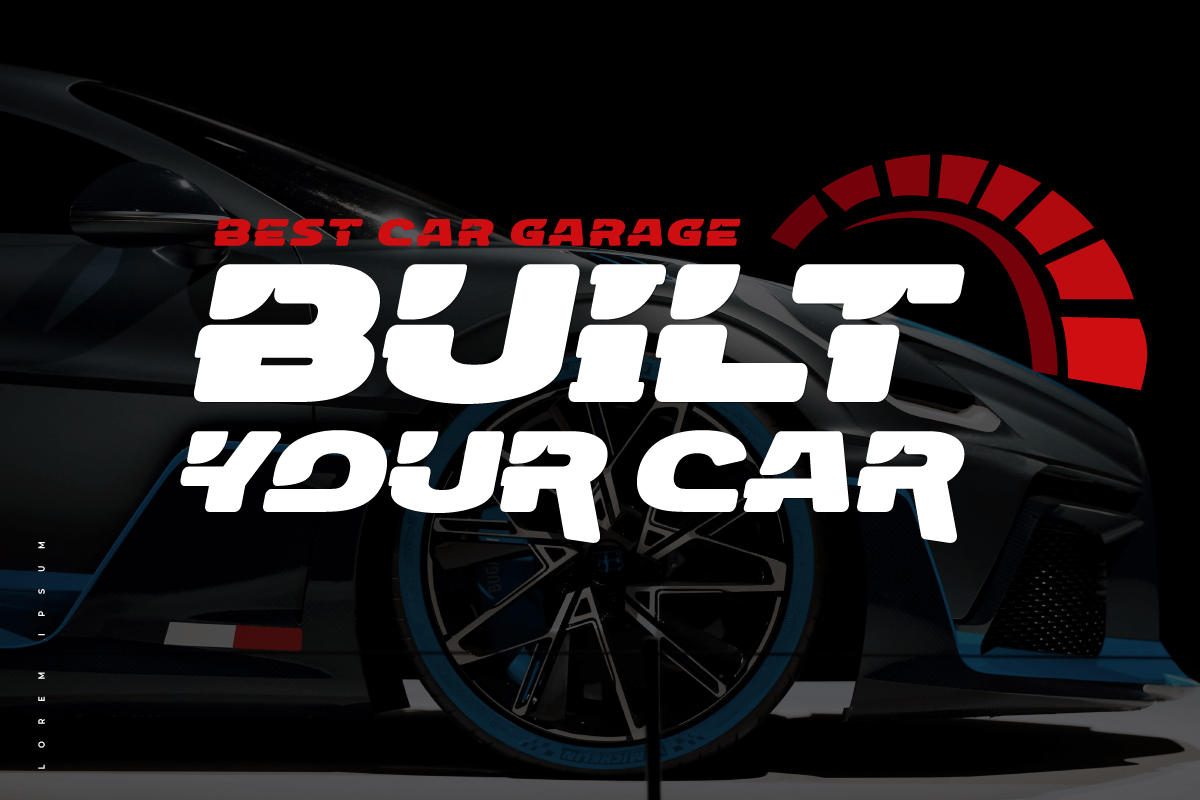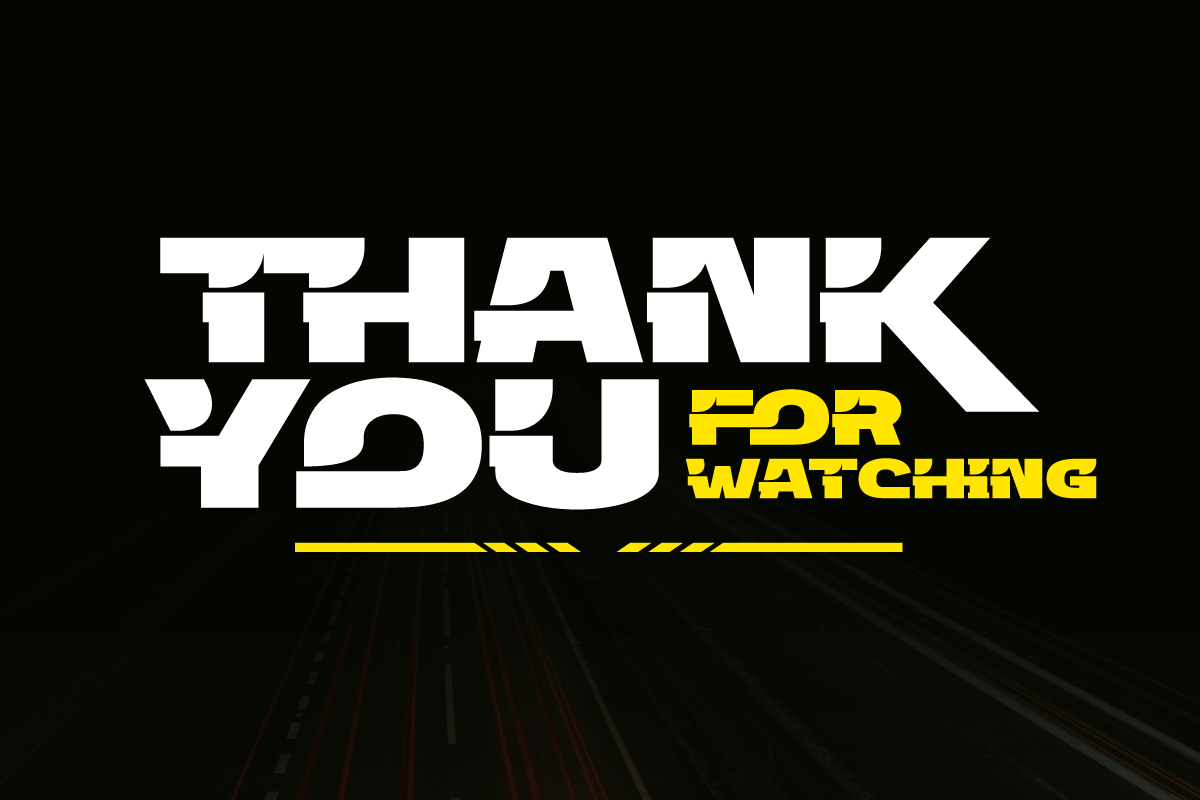
- DROPEX – Sport Racing Font
Dropex Racing Font is a bold, strong, and uniquely shaped font, masculine, and easy to read. This font was designed with attention to detail to make your design project stand out from the rest. Regular Style has been used in my free and premium products. comes in 4 slightly different styles, making it easy for you to choose according to your choice, using this font will definitely spice up any design project.
- All glyphs Iso Latin 1
- Ligature, Alternate
- Fonts include Multilingual support